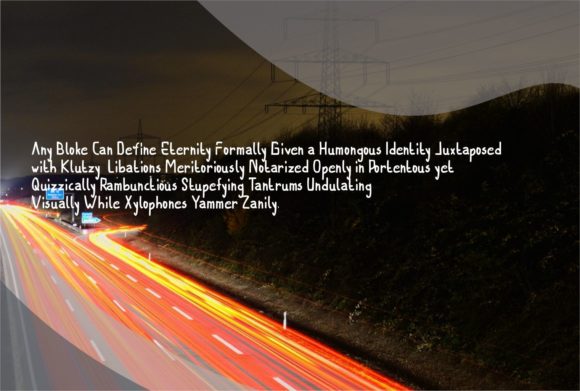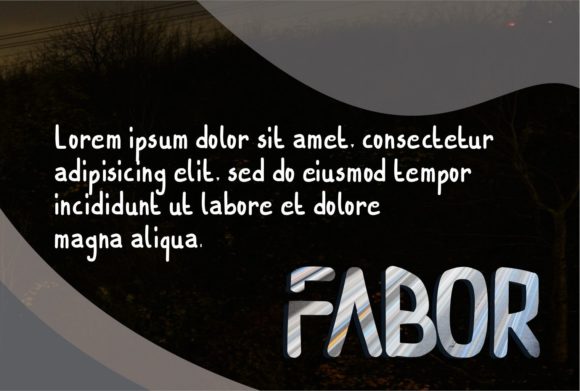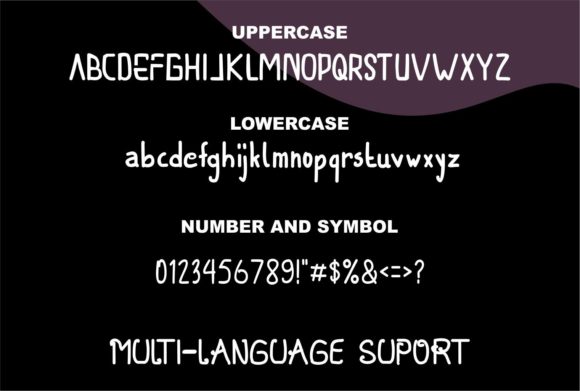
Fabor Font: The Ultimate Display Font for Designers and Crafters
Are you tired of using the same old fonts for your designs? Look no further than Fabor Font, a clean and adaptable display font that’s perfect for any project. In this article, we’ll explore the features and benefits of Fabor Font, and show you how to make the most of its endless possibilities.
What is Fabor Font?
Fabor Font is a modern display font designed to make your designs stand out. Its clean lines, elegant curves, and versatile style make it perfect for a wide range of applications, from posters and flyers to prints and digital media. Whether you’re a designer, crafter, or DIY enthusiast, Fabor Font is an excellent choice for any project.
Key Features of Fabor Font
- Clean and Adaptable: Fabor Font features a clean and adaptable design that can be used in a variety of contexts. Its simplicity and elegance make it perfect for both digital and print media.
- Highly Legible: The font is designed to be highly legible, even at small sizes. This makes it perfect for use in body text, headlines, and titles.
- Endless Possibilities: With Fabor Font, the possibilities are endless. Use it to create stunning posters, eye-catching flyers, or beautiful prints. You can also experiment with different colors, textures, and effects to create unique and eye-catching designs.
Benefits of Using Fabor Font
So why choose Fabor Font for your designs? Here are just a few benefits of using this amazing display font:
- Instant Professionalism: Fabor Font gives your designs an instant professional look and feel. Its clean lines and elegant curves make it perfect for creating high-quality designs that stand out from the crowd.
- Versatility: Fabor Font is incredibly versatile, making it perfect for a wide range of applications. Use it for posters, flyers, prints, digital media, and more.
- Easy to Read: The font is designed to be easy to read, even at small sizes. This makes it perfect for use in body text, headlines, and titles.
How to Use Fabor Font in Your Designs
Using Fabor Font in your designs is easy. Here are a few tips to get you started:
- Experiment with Different Sizes: Fabor Font looks great at a variety of sizes. Experiment with different sizes to find the one that works best for your design.
- Play with Colors: Fabor Font looks great in a variety of colors. Experiment with different colors and textures to create unique and eye-catching designs.
- Add Effects and Textures: Add effects and textures to your designs to give them an extra boost. Fabor Font looks great with subtle effects and textures that enhance its clean and elegant lines.
Tips and Tricks for Getting the Most out of Fabor Font
Here are a few tips and tricks for getting the most out of Fabor Font:
- Use it for Headlines and Titles: Fabor Font is perfect for use in headlines and titles. Its clean lines and elegant curves make it easy to read and visually appealing.
- Pair it with Other Fonts: Fabor Font pairs well with a variety of other fonts. Experiment with different font combinations to create unique and eye-catching designs.
- Use it for Digital Media: Fabor Font is perfect for use in digital media, including social media graphics, website headers, and more.